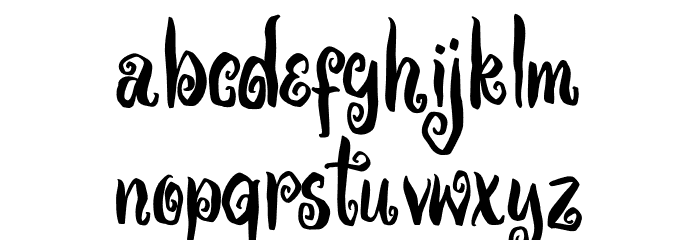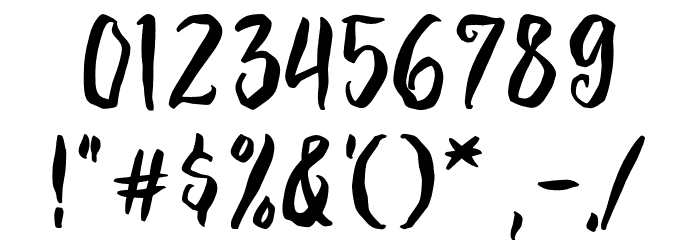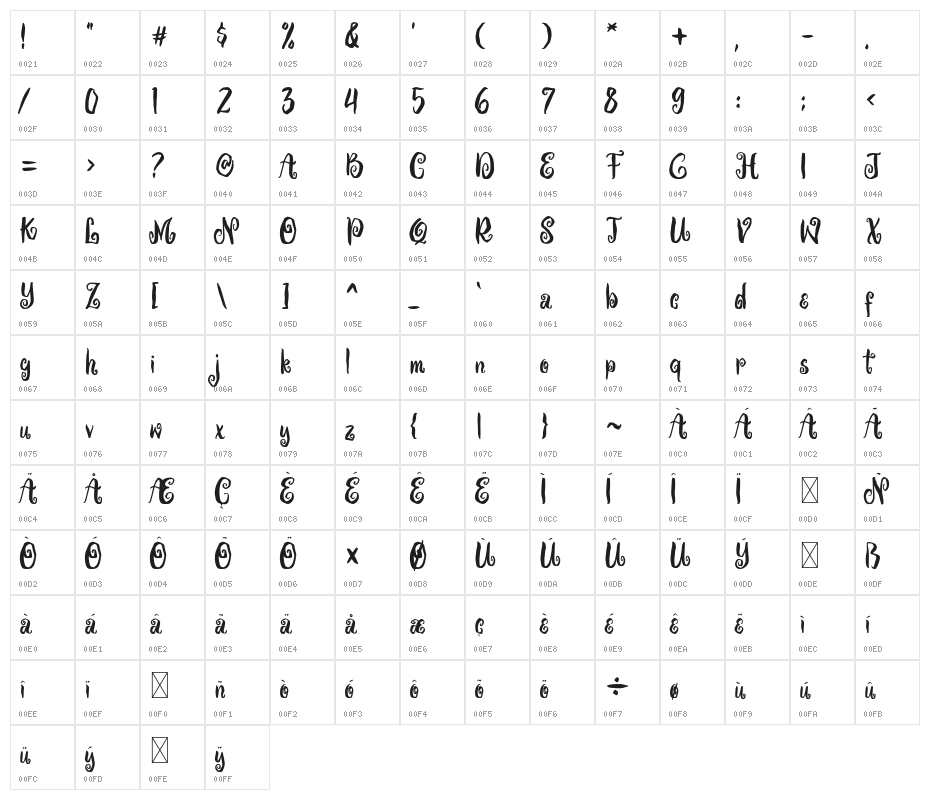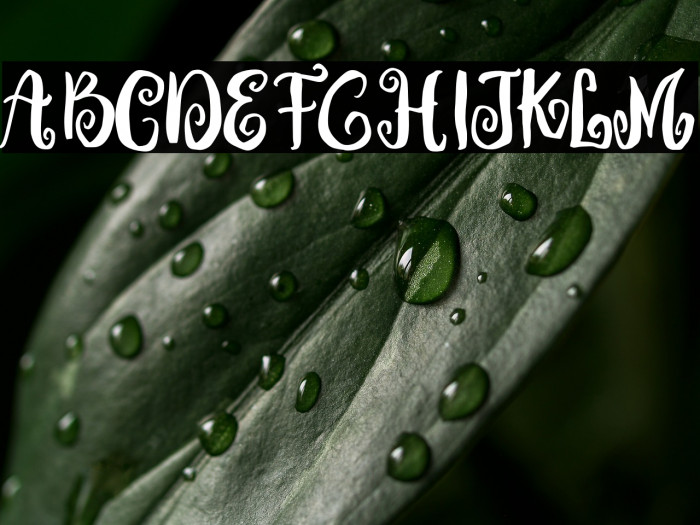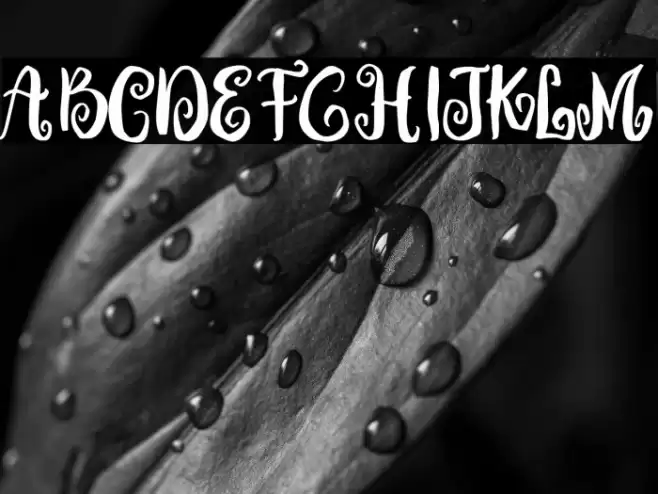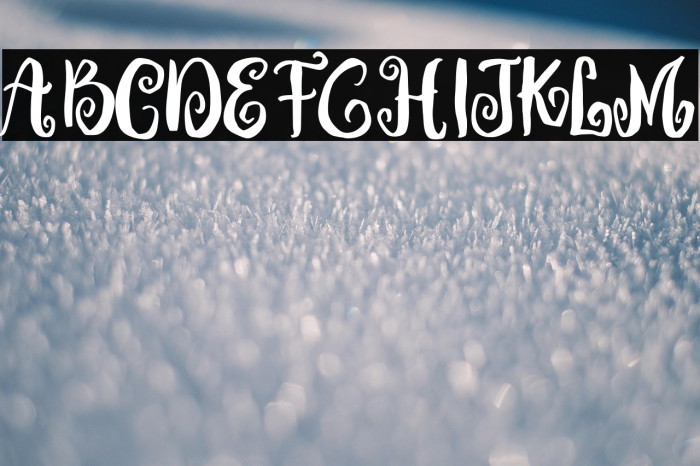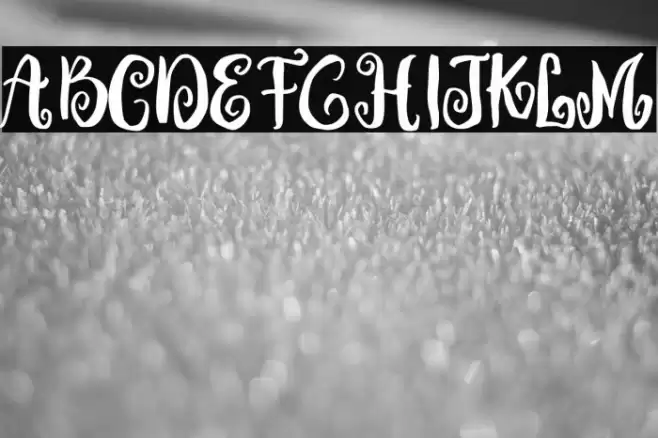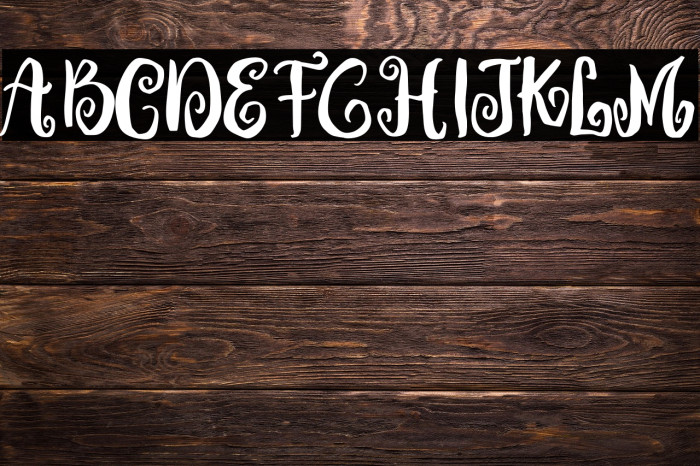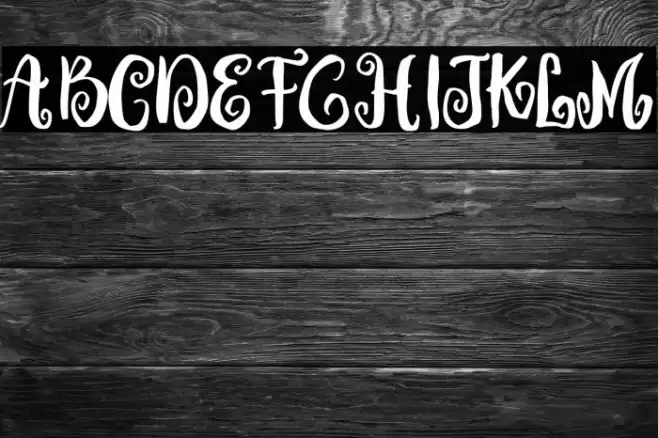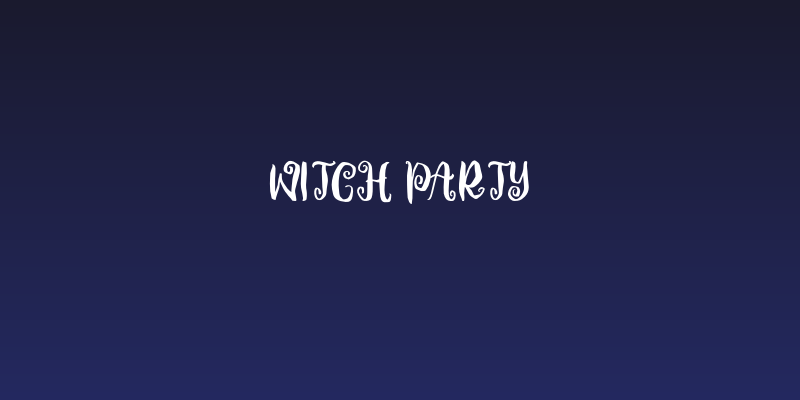
Witch Party Font
This font exudes a whimsical and playful vibe, characterized by its curly and exaggerated letterforms. Each character has a unique flair, with swirls and loops that add a sense of movement and energy. The uppercase letters are bold and prominent, while the lowercase letters maintain a consistent style with slightly more subtle curves. Numbers and special characters follow the same decorative theme, making the font cohesive and visually engaging. The overall design is reminiscent of a festive or magical theme, suitable for creative and imaginative projects.
A whimsical, curly font with playful and decorative letterforms.
- Font: Witch Party
- Proposed Projects: Ideal for Halloween-themed designs, party invitations, children's books, or any project requiring a magical or festive touch.
- Use Case: Headlines, Logos, Invitations